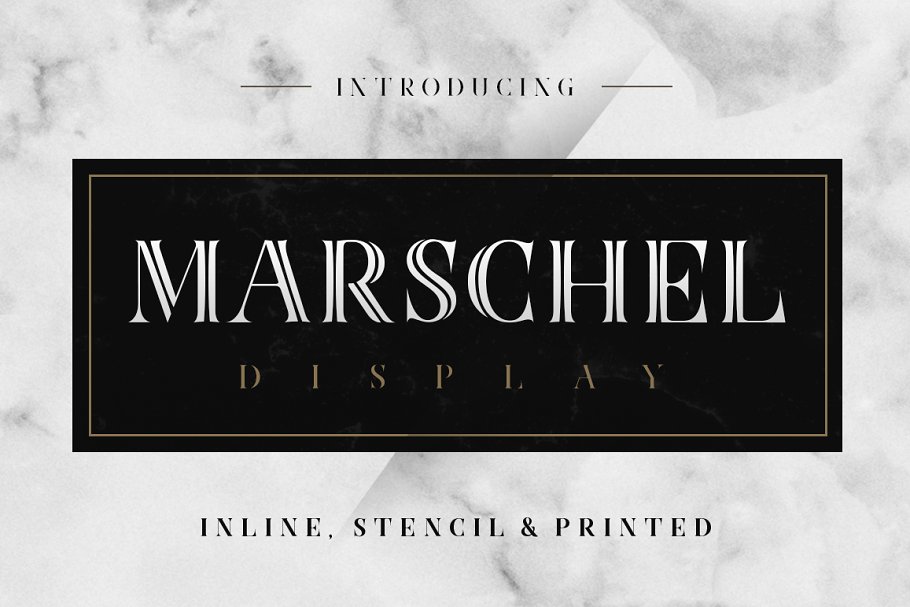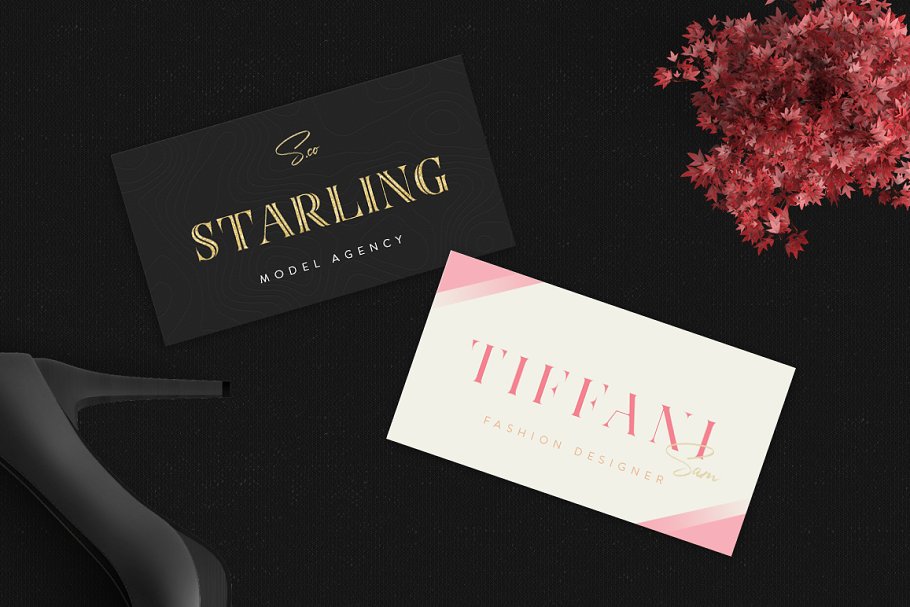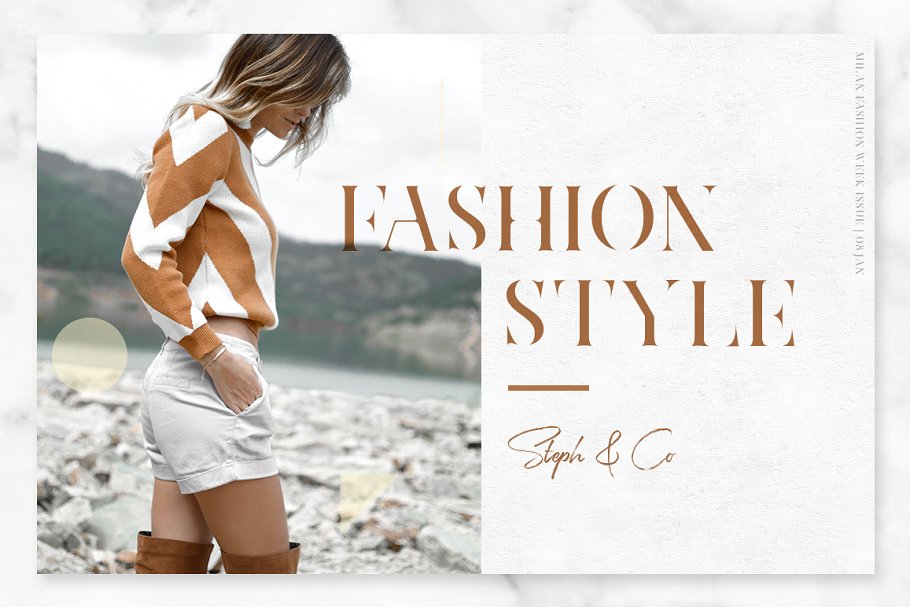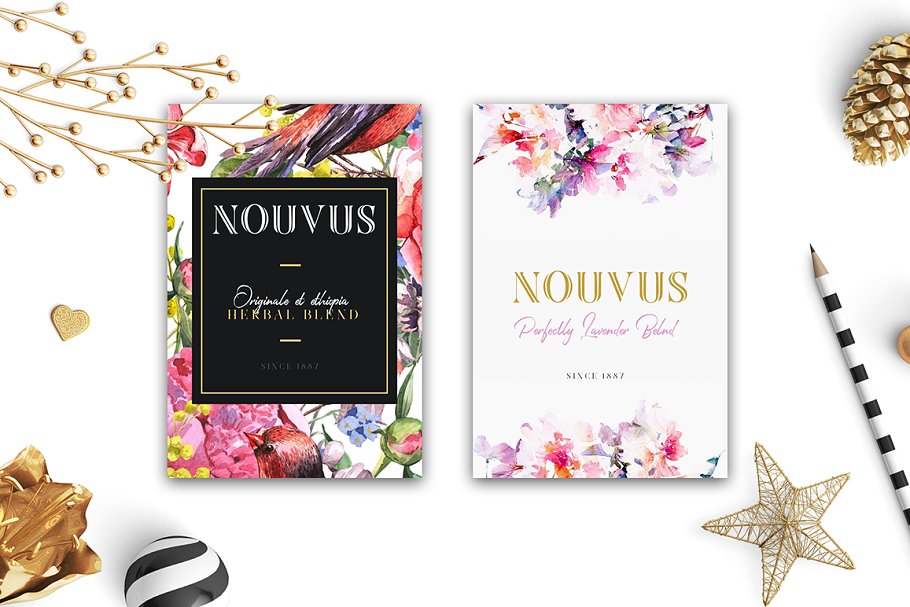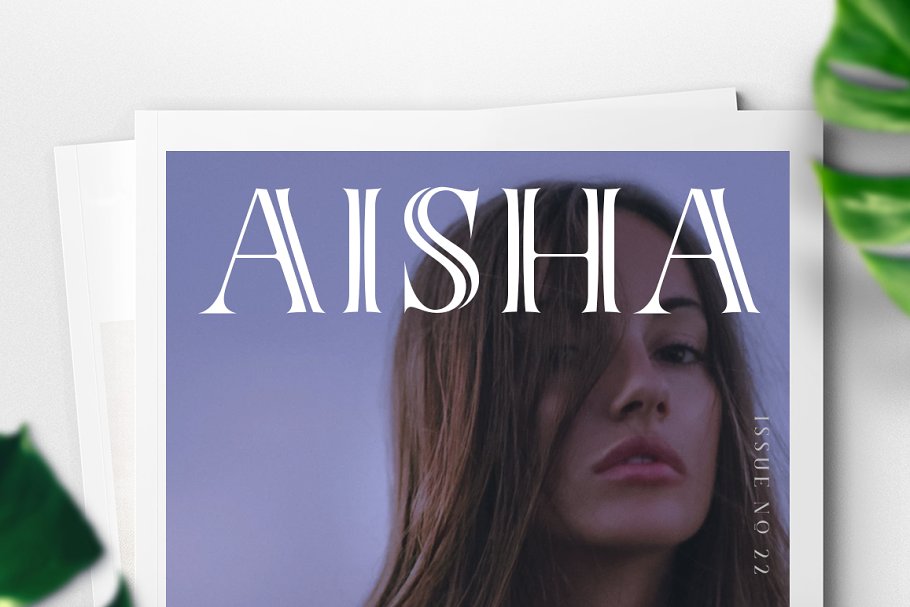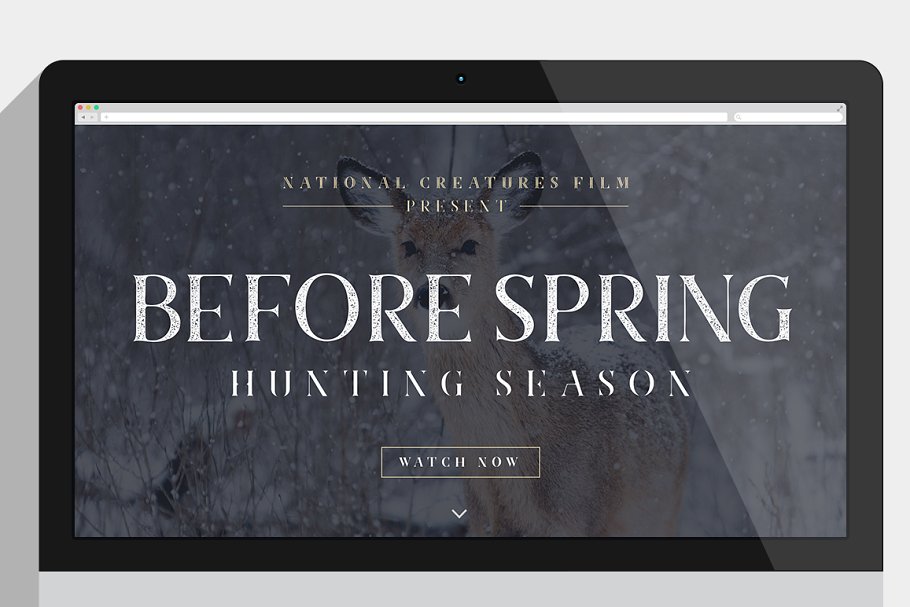
About the Marschel Display Font
Marschel Display ~ Inline, Stencil and Printed, Marschel Display is crafted for everyone that passionate in classy, fashion and fabulous things around, Also provide your needs to create a high-class designs on a big readable title and best to used on a brand name, or any words that need to looks prominent and perfect to shown on any media, Marschel Display consist in 3 styles, Inline, Stencil and Printed with uppercase, numeral, punctuation, symbol and unique ligatures that will make your designs standout and bring a charming and unusual feeling, each with it’s own unique personality to suit the look you are after